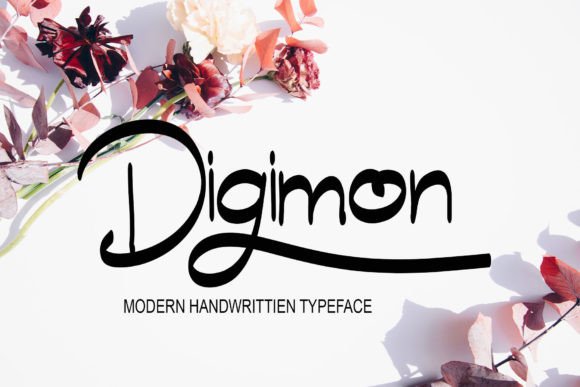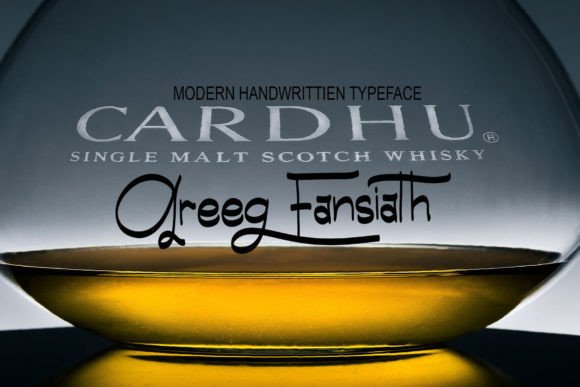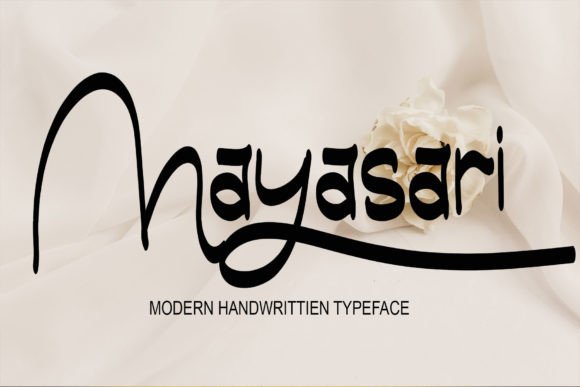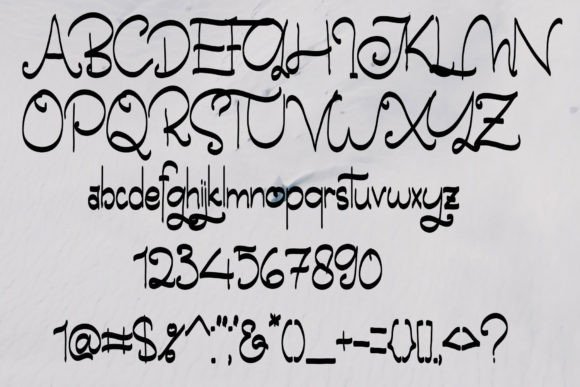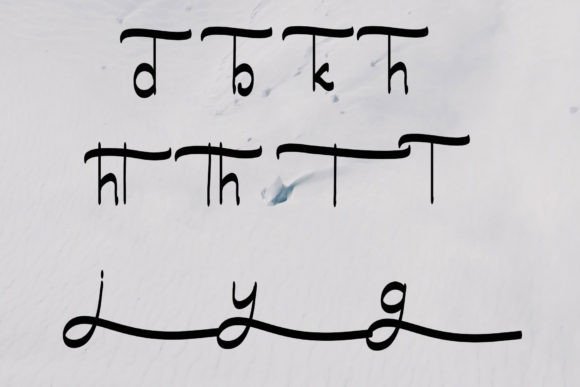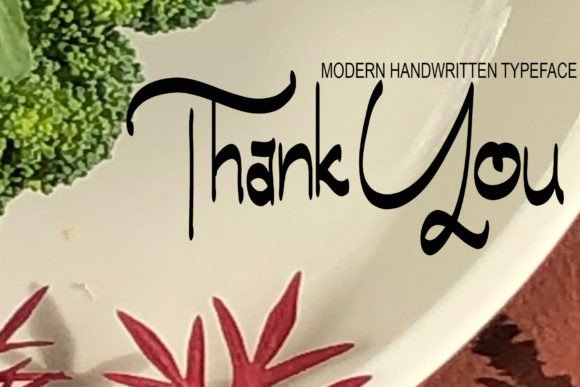
About Digimon Font
Digimon is a script font written by hand using a tablet. This font is very simple and can be used for websites, wedding invitations, business cards, signatures, and advertisements, be it product advertisements or other advertisements. Even though it looks simple, this font still looks cool and stylish.